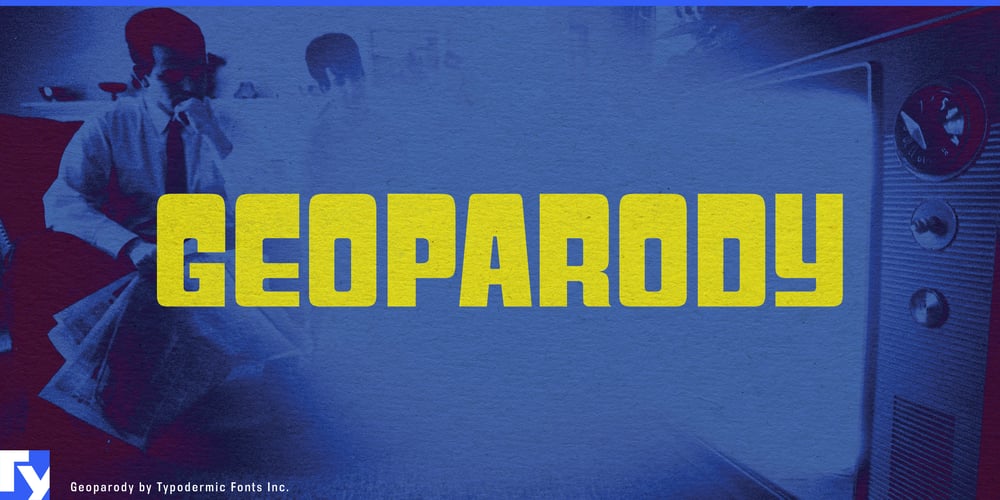
Geoparody Font Family was designed by Ray Larabie and published by Typodermic. Geoparody contains 12 styles and family package options. Groove into the typographic time warp with Geoparody, a font that doesn’t just nod to the 1960s—it throws a full-blown psychedelic party on your page. This isn’t your grandmother’s vintage typeface; it’s a bold, funky reimagining of the iconic Anonymous font that once lit up television screens on “Jeopardy!”Geoparody cranks up the volume on its predecessor, offering a spectrum of six weights and italics that let you fine-tune your designs from a whisper to a visual shout. But here’s where things get really far out: OpenType stylistic alternates featuring groovy “X” and “Y” variants that add an extra dose of flower power to your typography. This font doesn’t just cross linguistic borders—it breaks them down with the power of universal love. Supporting a vast array of Latin-based European writing systems, Geoparody ensures your message maintains its hip vibe whether you’re communicating in Croatian or crooning in Catalan.Choose Geoparody when you need typography that doesn’t just speak—it sings, dances, and probably plays the sitar too. It’s perfect for designs that aim to capture the rebellious spirit and optimistic futurism of the late ’60s. Let Geoparody be the voice of your most colorful ideas, transforming ordinary text into a trip through typographic time and space. Picture Geoparody strutting its stuff across retro posters, grooving on album covers, or turning websites into portals to a more vibrant era. It’s more than a font; it’s a time machine that runs on creativity, ready to transport your designs to a world where style was king, and convention was just a square’s game.In a sea of conformist fonts, Geoparody stands tall as a beacon of individuality and free expression. It’s not just about looking back—it’s about bringing the best of the past into the future of design.